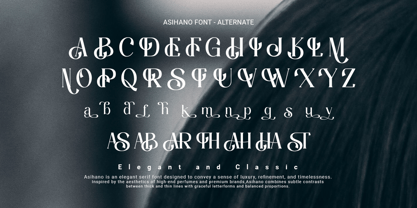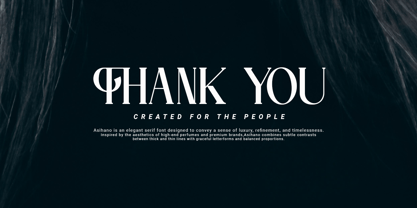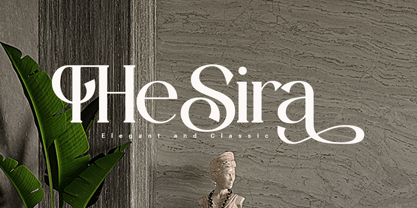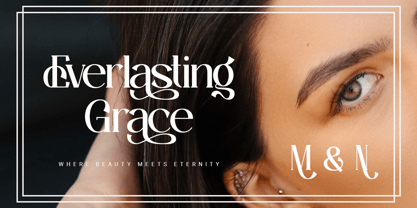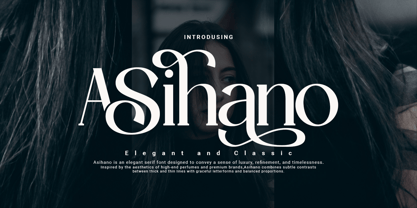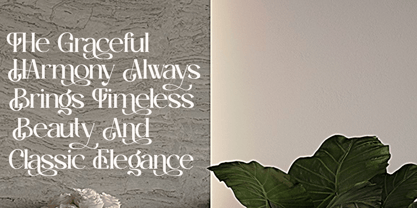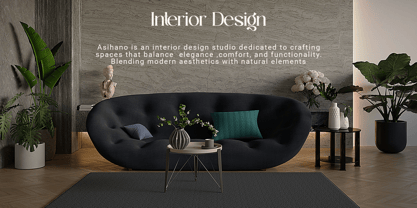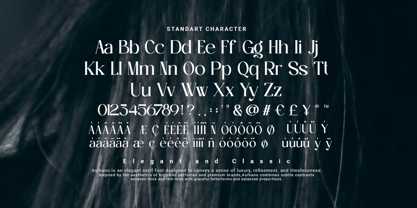
Asihano
Asihano Serif is a refined serif typeface that blends timeless elegance with modern sophistication. Designed with balanced proportions, graceful curves, and crisp serif details, Asihano delivers a luxurious and professional look suitable for a wide range of creative and editorial projects. Its carefully crafted letterforms ensure excellent legibility while maintaining a distinctive personality that elevates any design.
Inspired by the beauty of classic typography, Asihano Serif features high-contrast strokes and elegant terminals that create a harmonious visual rhythm. Whether used for large display headlines or smaller body text, this font delivers a refined and premium aesthetic. The subtle details in each character make it an excellent choice for designers seeking a typeface that communicates confidence, prestige, and artistic craftsmanship.
Ashihano Serif is highly versatile and works beautifully in a variety of areas such as branding, logo design, luxury packaging, fashion editorials, wedding stationery, book covers, magazines, websites, social media graphics, advertising campaigns, and premium product presentations. This font is perfect for brands seeking to express elegance, exclusivity, heritage, and contemporary style.
Bringing classic serif tradition and modern refinements, Asihano Serif offers designers the flexibility to create memorable visual identities while maintaining exceptional clarity and legibility. Ideal for both personal and commercial projects, this font provides a timeless foundation that enhances any composition with sophistication and charm. Whether creating minimalist branding or luxurious editorial layouts, Asihano Serif delivers a graceful typographic experience that remains stylish amidst changing design trends.